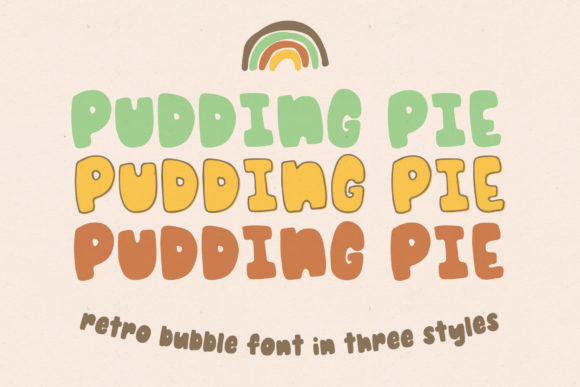
Prepare to dive into a nostalgic paradise with Pudding Pie Font, the ultimate display font that will transport you back to the groovy era of the 70s! This playful typeface, lovingly crafted by kelliejaynestudio, is like a time capsule filled with the essence of retro goodness.
Picture this: a vintage tee, adorned with the charmingly bubbly letters of Pudding Pie Font. It's a statement piece that speaks volumes of your unique style. Its carefree and whimsical nature will evoke a sense of nostalgia, whisking you away to a time of bell bottoms and disco beats.
But don't let its playful demeanor fool you—Pudding Pie Font is a versatile powerhouse. Its simple yet captivating design makes it an ideal choice for a wide range of creative projects. Whether you're designing eye-catching social media posts, creating custom invitations, or adding a touch of retro charm to your website, Pudding Pie Font will deliver every time.
Every character in this display font is a masterpiece of retro art, carefully crafted to capture the essence of the 70s. Its smooth curves and rounded edges exude a playful elegance that will make your designs stand out from the crowd.